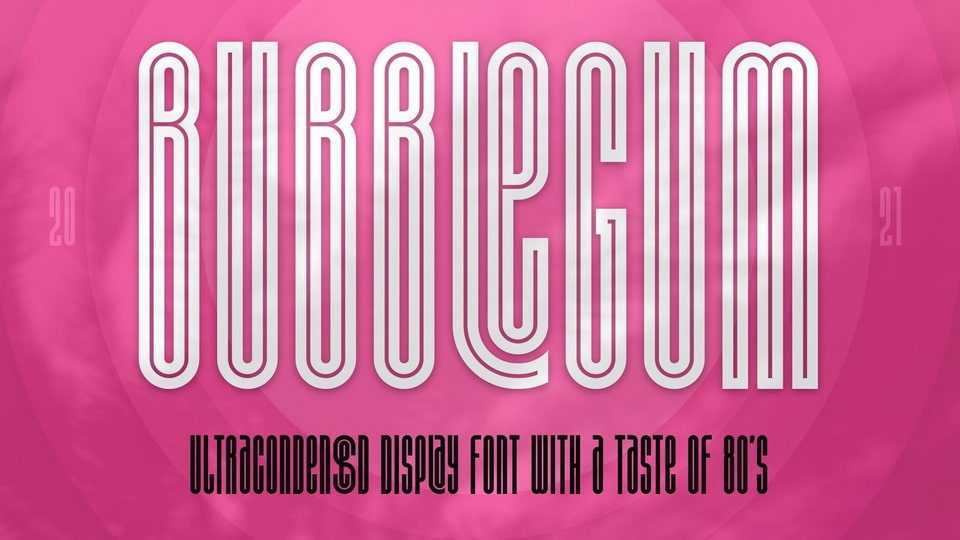
Download ST-Bubblegum font, a retro futuristic modern editorial typeface with a taste of 80’s, inspirated by sport and cinema posters. ST-Bubblegum font is good for headlines, large-format print, branding, posters, fashion designs and apparel design.
Designer: Alexander Shimanov